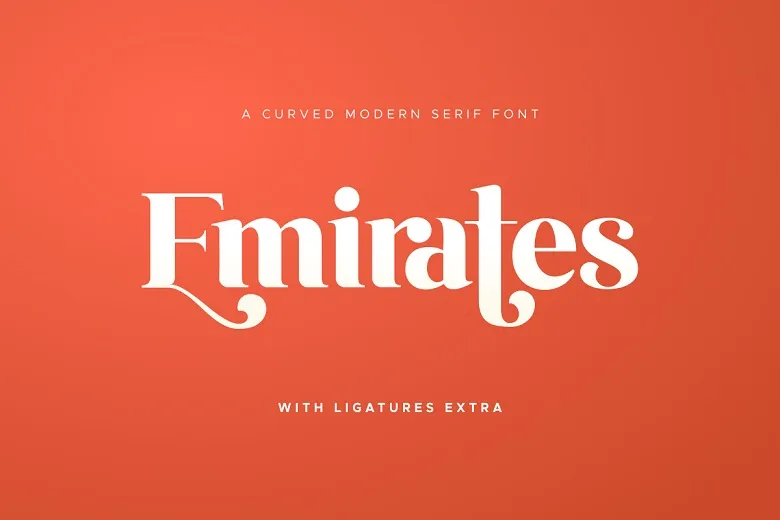
Emirates Font is a modern serif font, with a great curve and ligatures of the letters. This font is a display serif font with moderate contrast which is suitable for branding purposes, logos, weddings, social media sites, advertisements, packaging, products, labels, photos, invitations, stationery, among other projects since it has high readability.